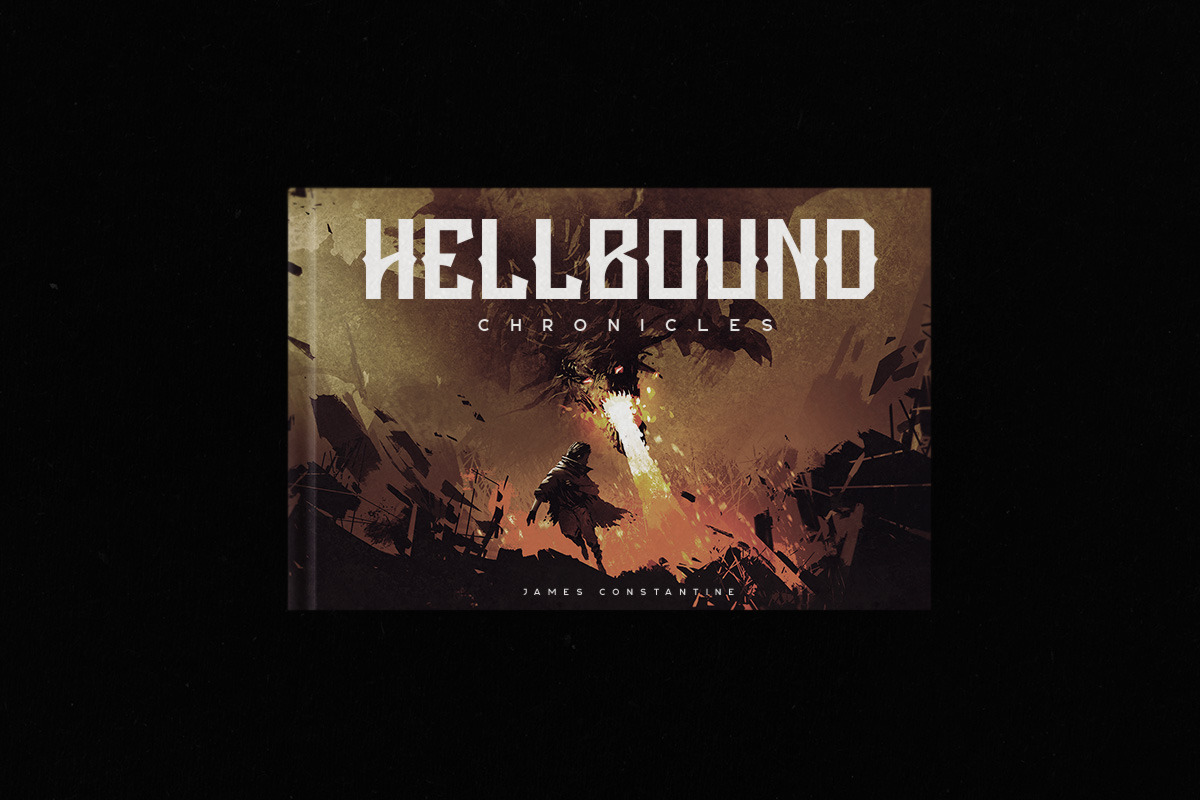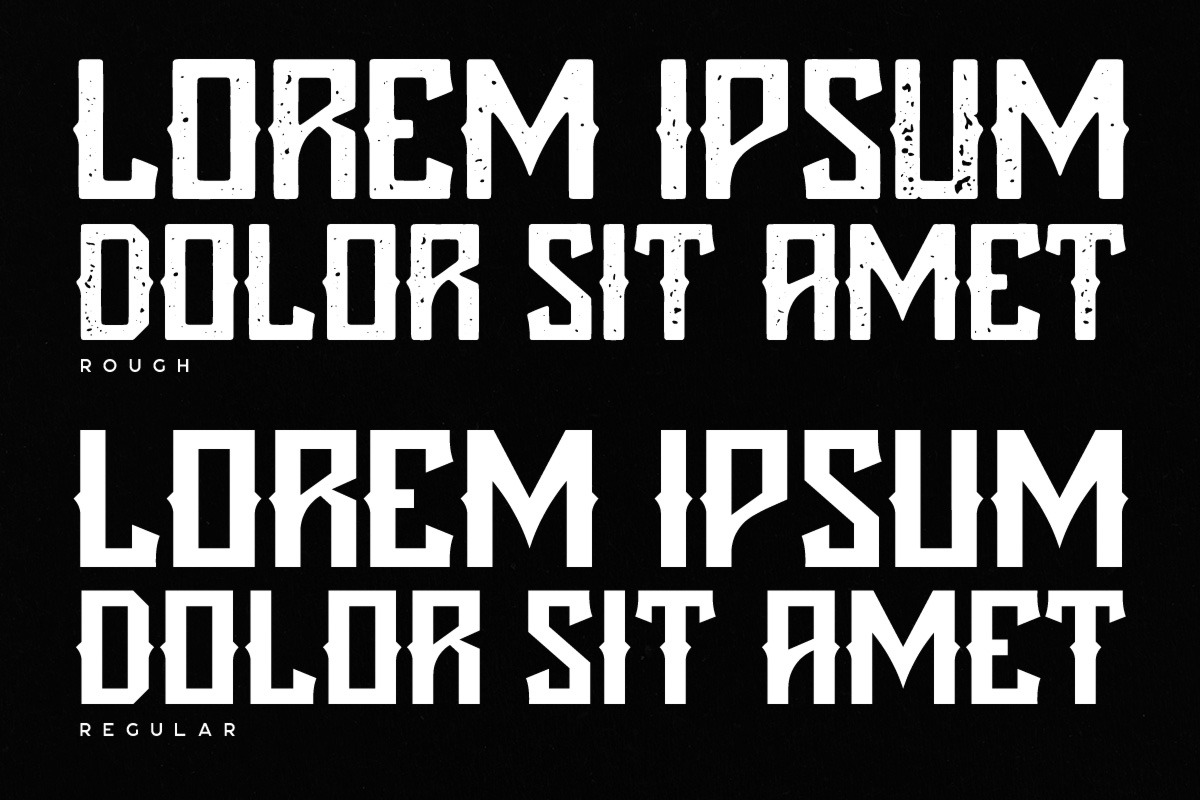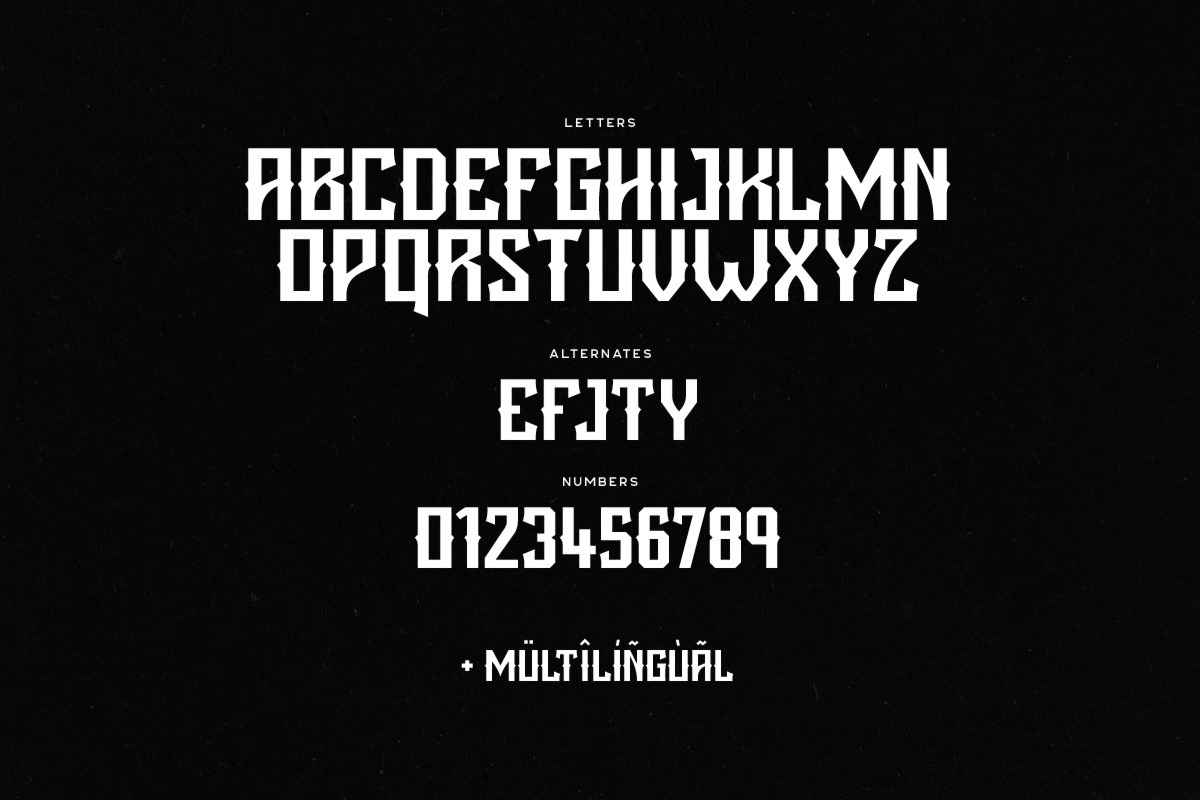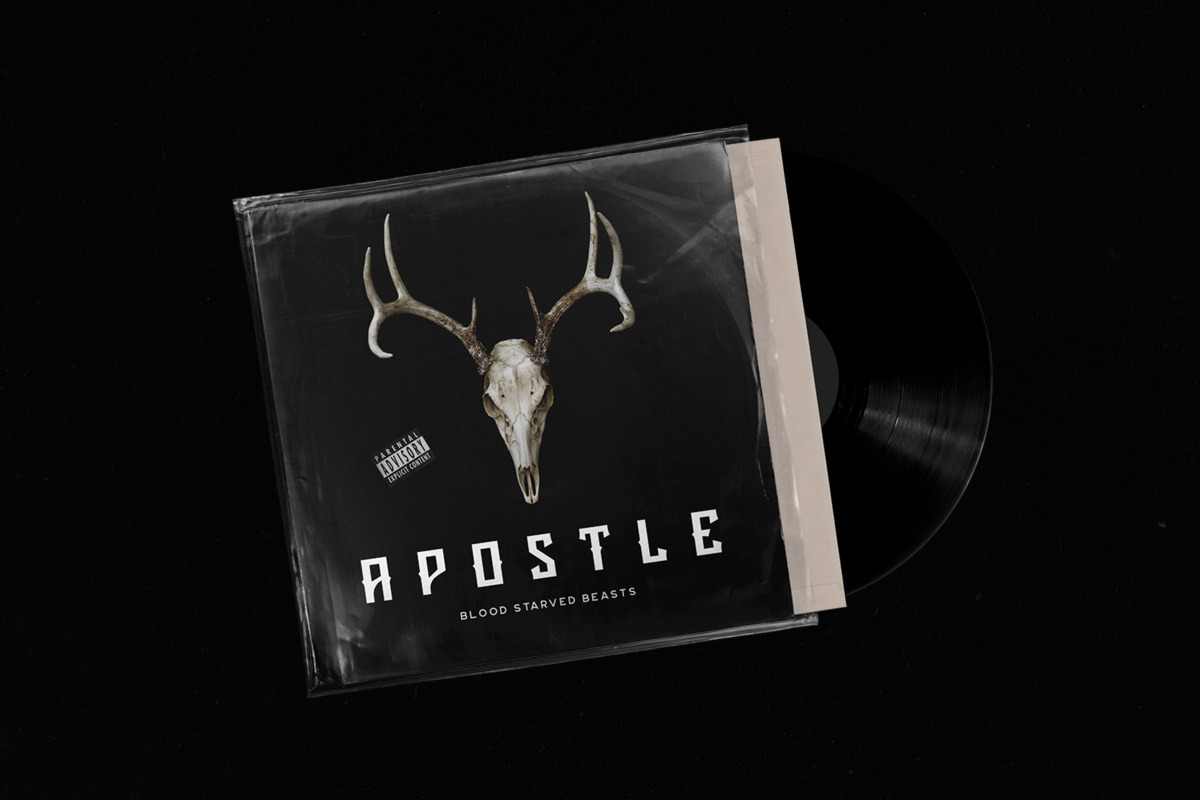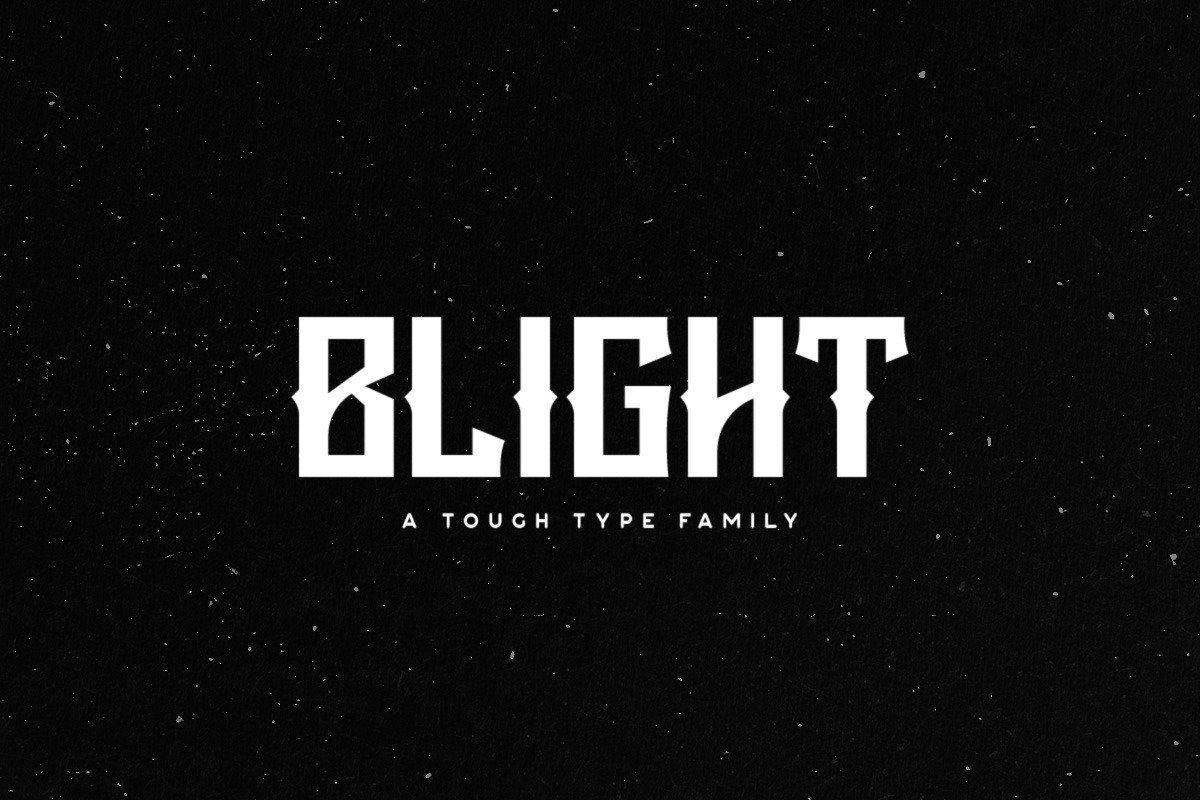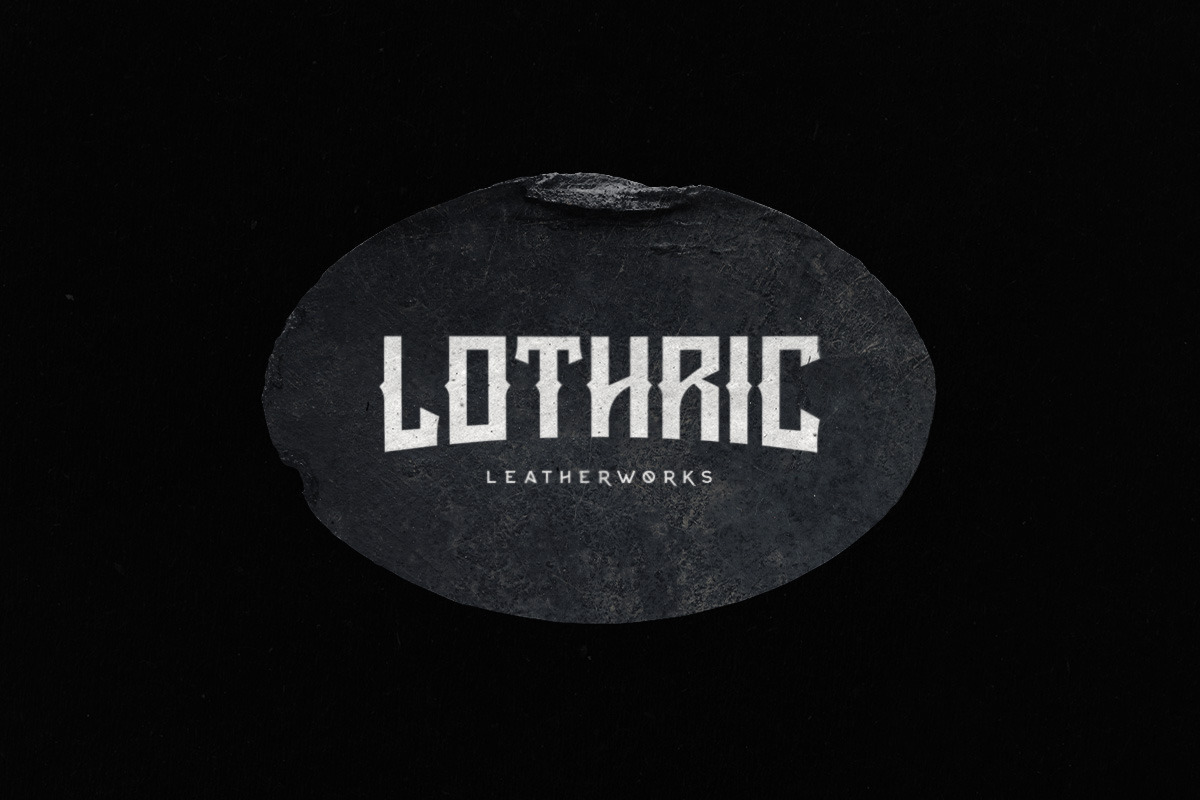
Blight Typeface
Blight is a strong display type with uppercase multilingual letters, a couple of alternate letters, numbers and punctuation. It comes in regular and rough styles.